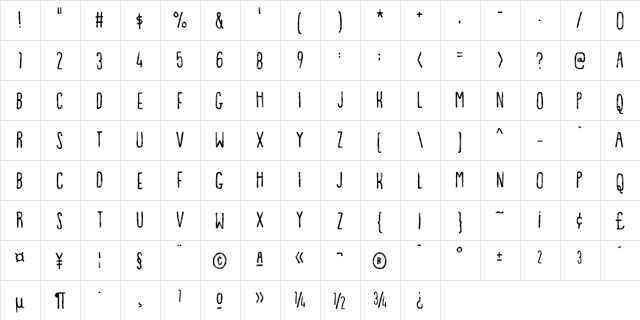
Volumen Regular
| Foundry | Jakob Fischer / pizzadude.dk |
| Designer | Jakob Fischer / pizzadude.dk |
Design Context for Volumen Typeface
Volumen is a composed and adaptable typeface that performs quietly and consistently across a wide range of design contexts.